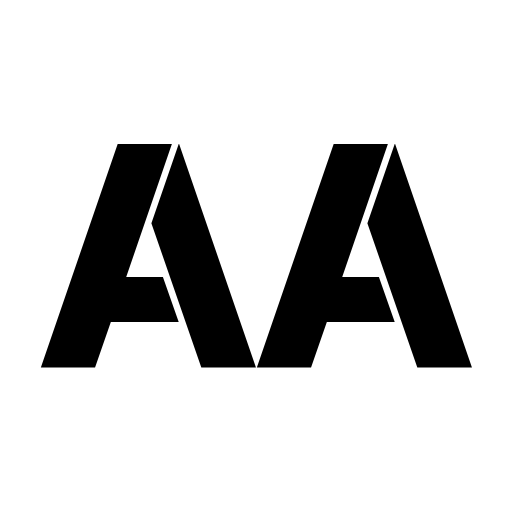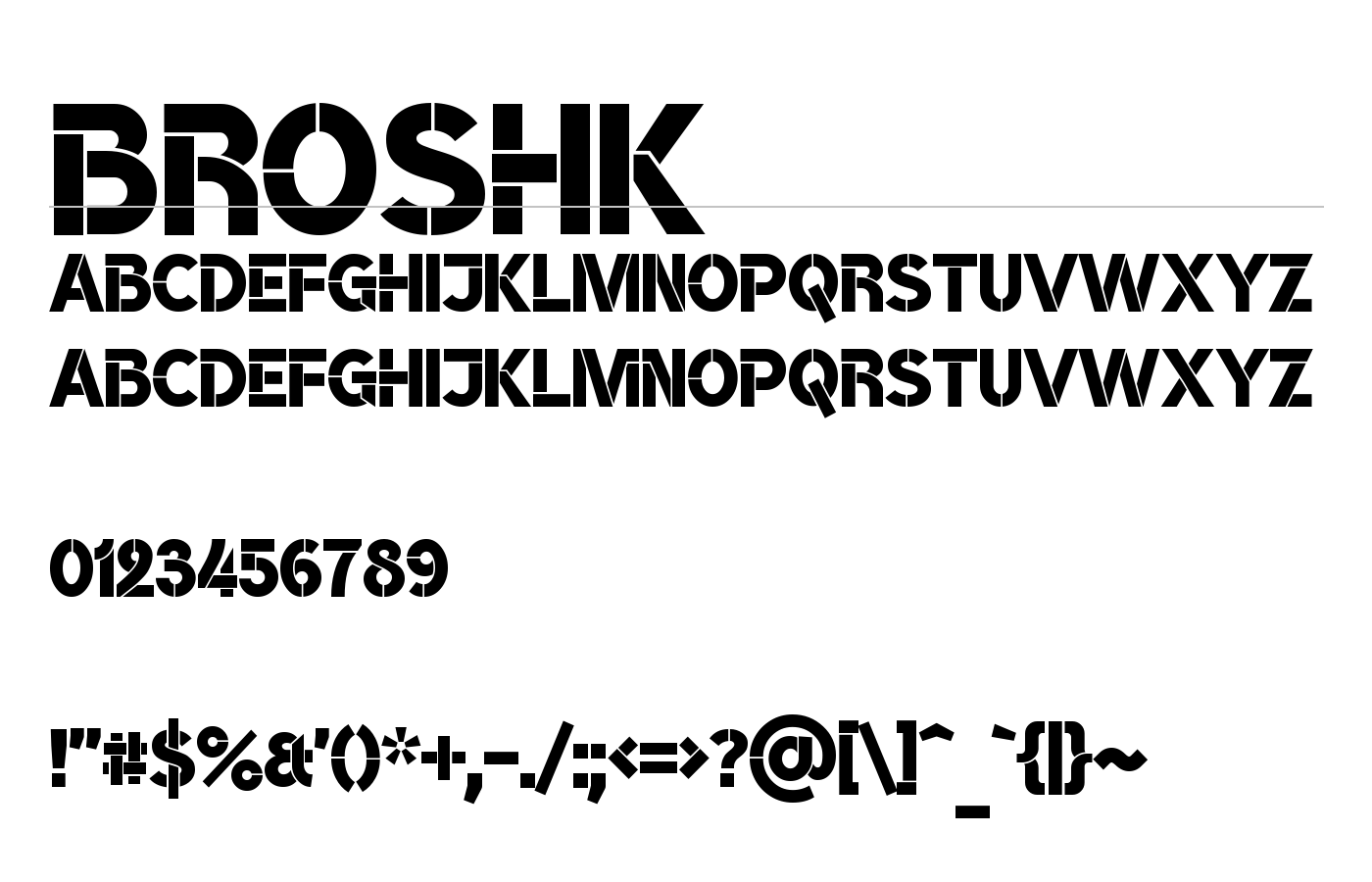
BroshK is a bold, modern sans serif font with a distinctive geometric style that uses sharp angles and segmented cuts to create a striking, futuristic look. Its strong weight, wide letterforms, and high contrast between solid and open spaces make it highly impactful, perfect for eye-catching headlines, logos, and branding in tech or contemporary design. This font’s unique, almost stencil-like character brings a bold, edgy personality that suits creative projects seeking a modern and innovative feel.
BroshK Font
About BroshK Font